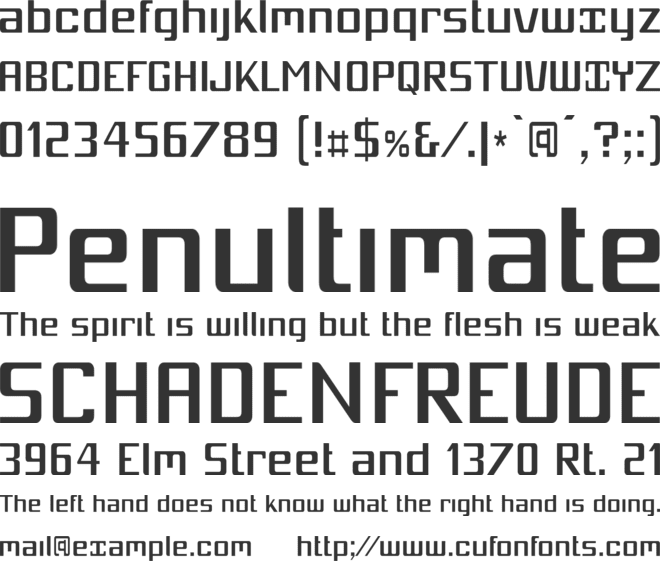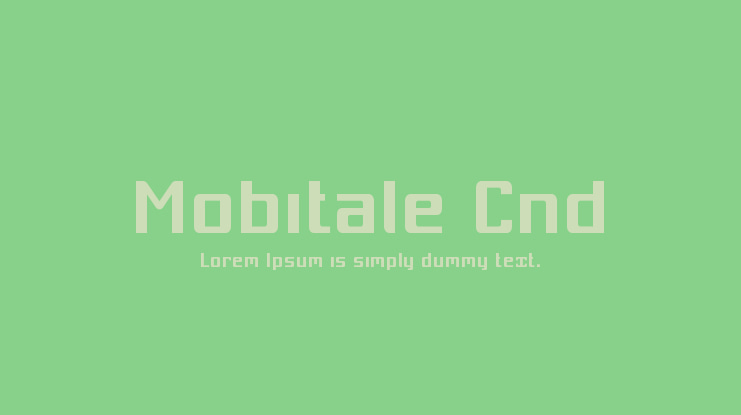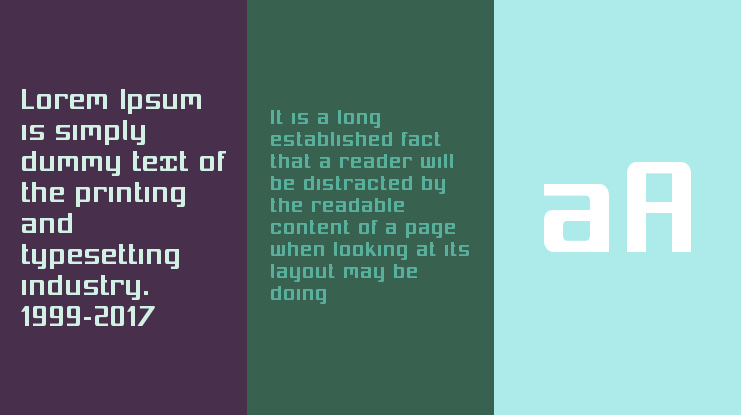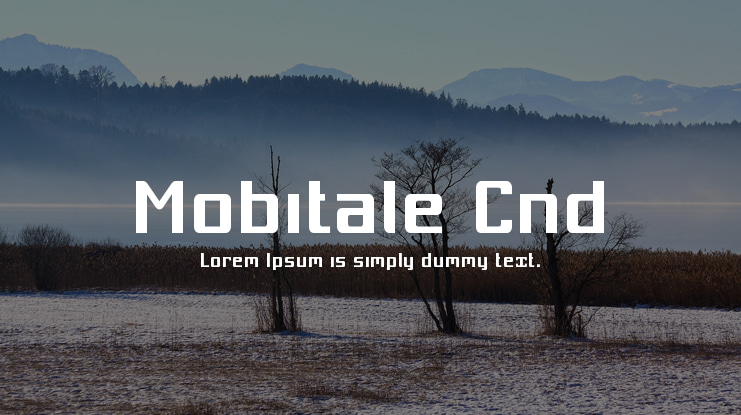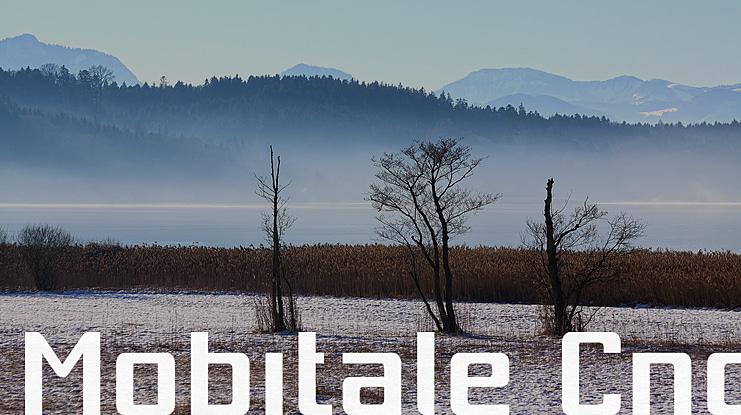
Mobitale Cnd Font Family
Cleber Giovani Soares
Based on one of my client's logotype.Based on one of my clients' logotype.
Criada por Cleber Giovani Soraes, em dezembro de 2006.